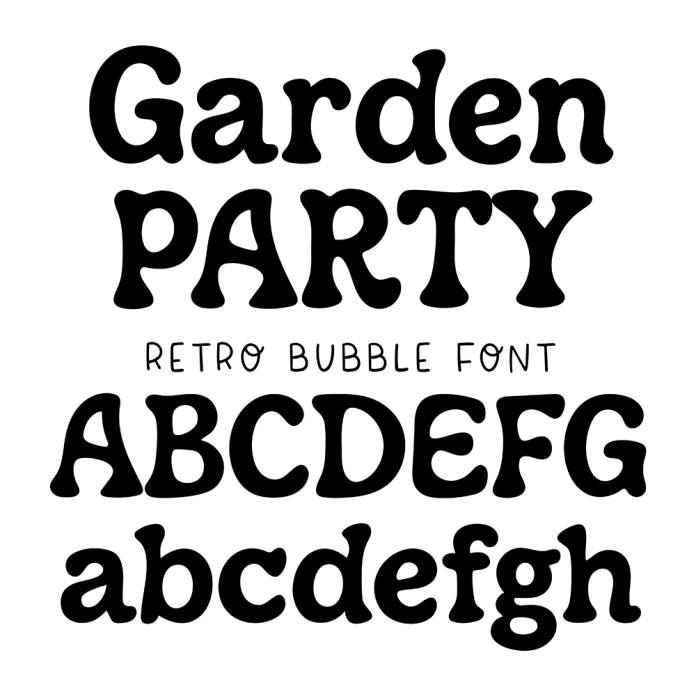
Garden Party Retro Bubble Sans Font is a whimsical and playful typeface perfect for spring-themed designs. Its rounded, bubbly letters exude a fun and festive vibe, making it ideal for invitations, greeting cards, and party decorations. This decorative sans serif font adds a touch of charm and nostalgia to any project.